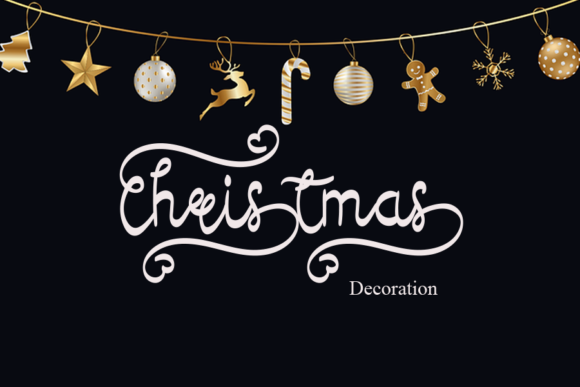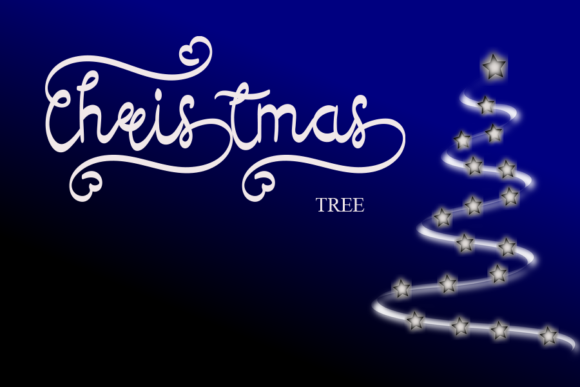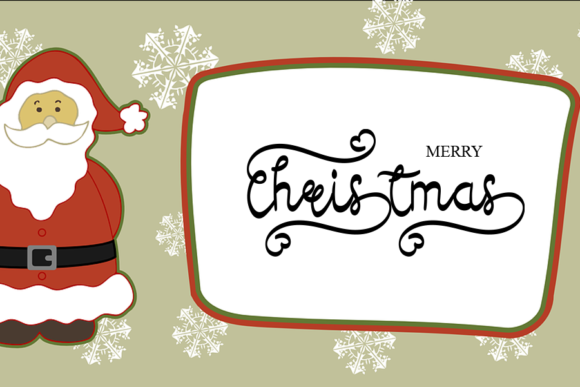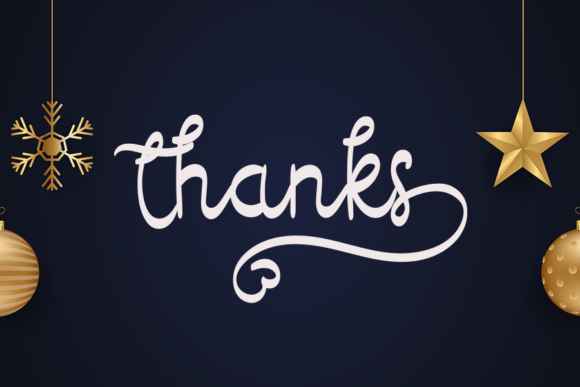
About Special Christmas Font
Special Christmas is a lovely and delicate script font. Fall for its ravishing style and use it to create gorgeous wedding invitations, beautiful stationary art, eye-catching social media posts, and much more!